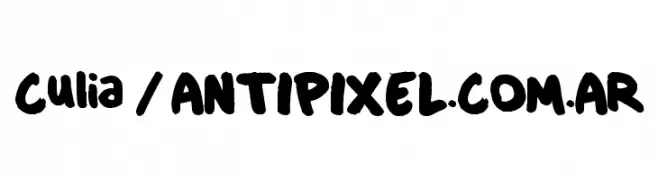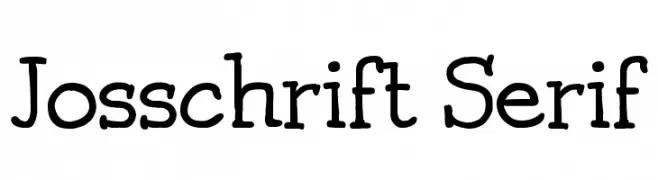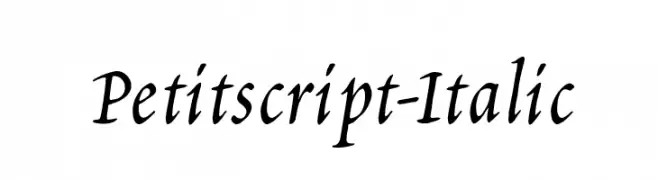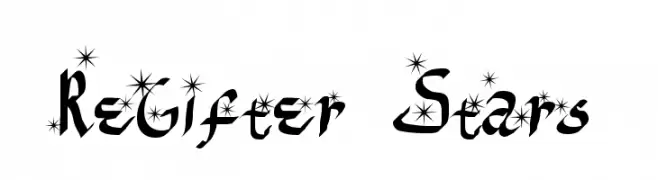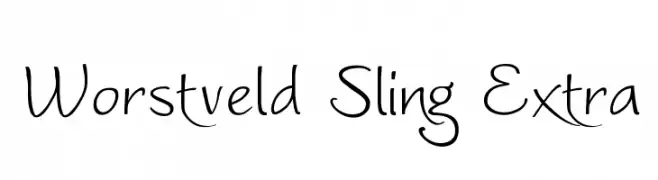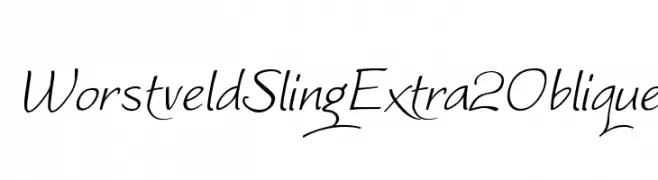
A playful, handwritten font with flowing, cursive-like strokes.
An elegant italic font with flowing curves and moderate contrast, ideal for sophisticated designs.
A playful, hand-drawn font with a casual and lively appearance.
A whimsical, cursive-like font with elegant curves and a playful style.
An elegant, oblique font with a calligraphic influence and flowing style.
A flowing script font with elegant curves and modern design elements.
A bold, hand-drawn font with a playful and energetic style.